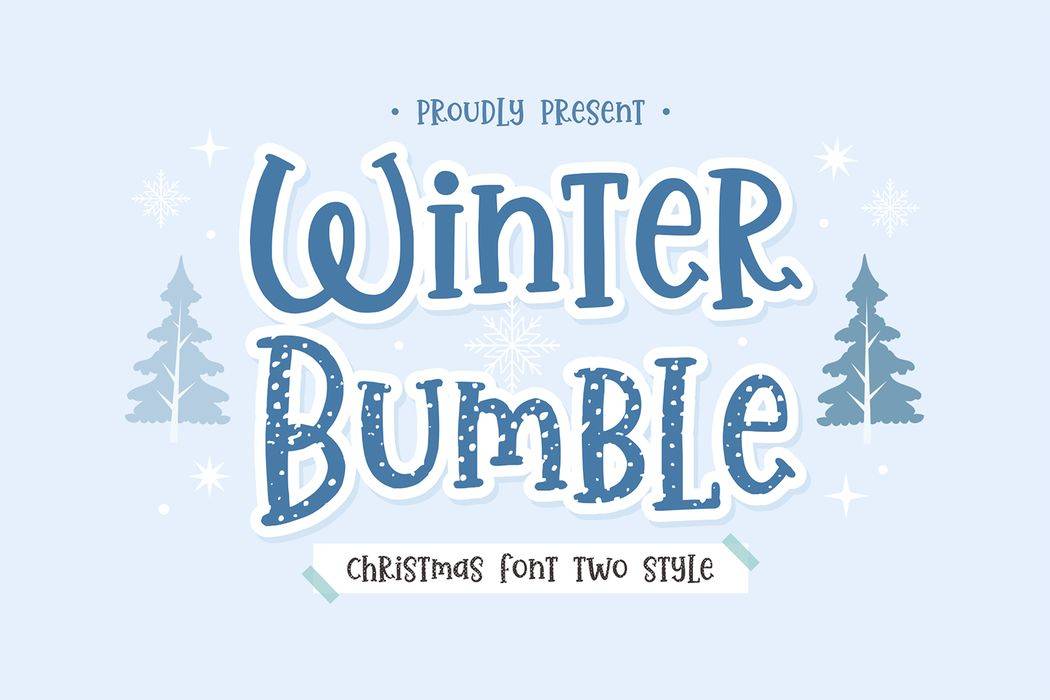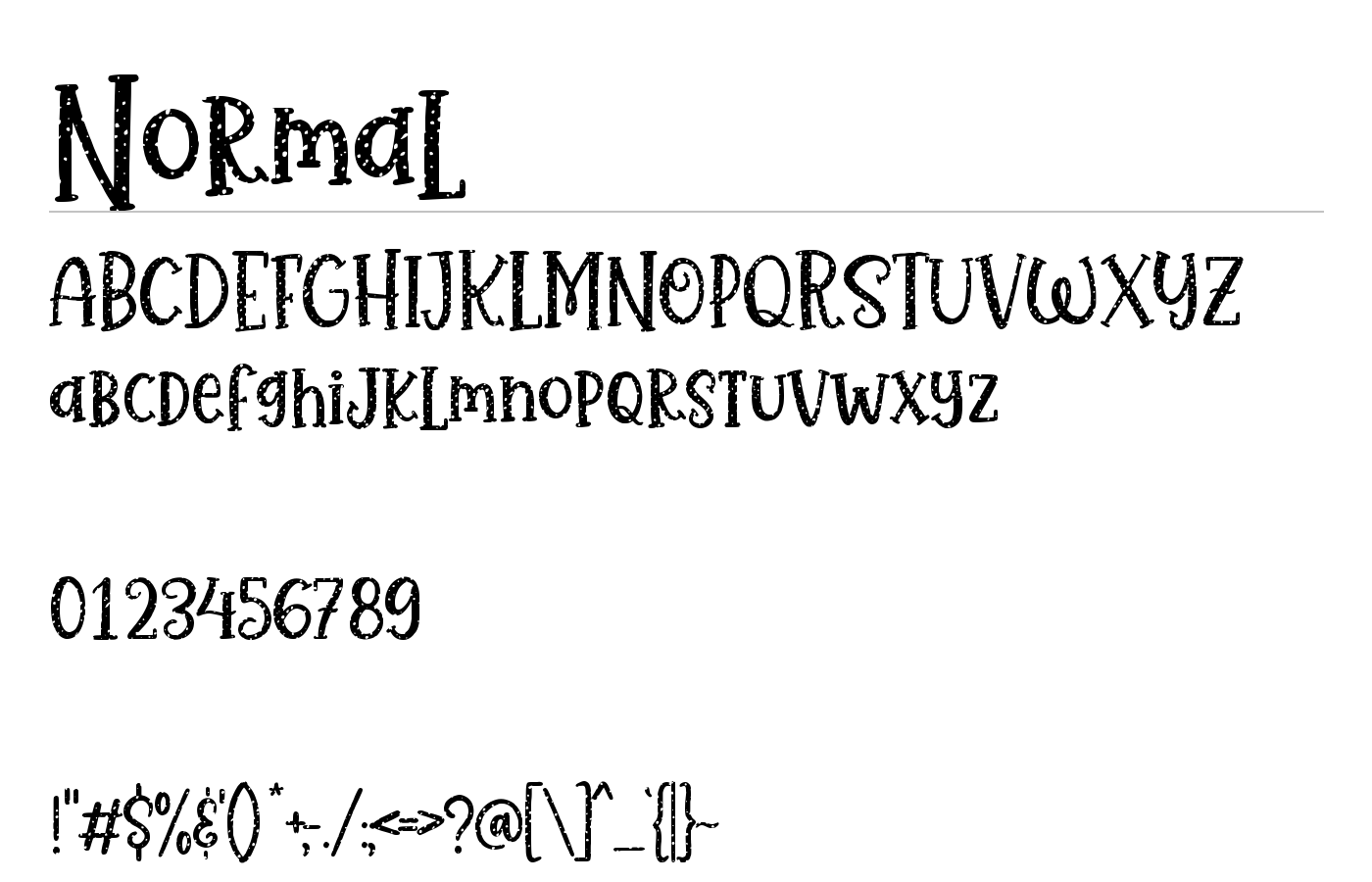
Winter Bumble is a playful, hand-drawn serif font with a quirky, uneven texture that gives it a friendly and whimsical feel. Its irregular shapes and speckled details make it perfect for casual, fun designs such as children’s books, holiday cards, or creative branding that aims to be approachable and unique. This font works best in headlines or decorative uses, where its character and charm can truly shine.
Winter Bumble Font
About Winter Bumble Font